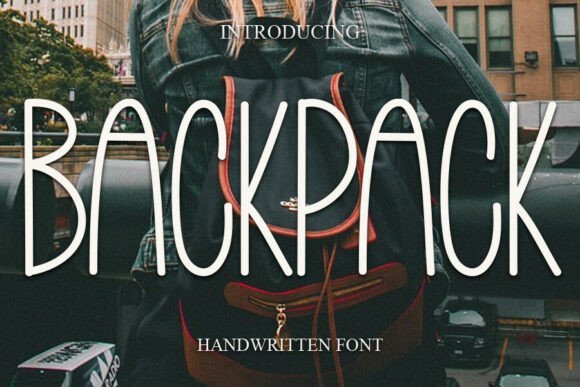
The Perfect Companion for Your Creative Journeys
There’s nothing quite like the feeling of pouring your heart into a design project. The hours of brainstorming, the endless iterations, and the satisfaction of bringing your vision to life. For designers, these moments are what make it all worth it.
When you’re working on a project that requires a touch of warmth and personality, that’s where Backpack Font comes in. This charming handwritten font is perfect for Father’s Day designs, greeting cards, t-shirts, posters, and more. Its slim, elongated characters bring a sense of approachability and heart, making it an invaluable addition to any designer’s toolkit.
Key Features of Backpack Font
- Character Set: The font includes a comprehensive character set, including Latin, Cyrillic, and Greek alphabets, as well as a range of symbols and punctuation marks.
- Unique Characteristics: Backpack Font features a distinctive, hand-drawn design with a mix of rounded and angular shapes, giving it a friendly and approachable feel.
Backpack Font Review
Backpack Font is an interesting take on the modern sans-serif genre, offering a unique blend of playfulness and professionalism. Here are some aspects where it truly shines: ✨
- Unique design: Backpack Font stands out from more generic sans-serif fonts, offering a distinctive look that’s both fun and sophisticated.
- Clear legibility: The font is well-designed for readability, making it suitable for a wide range of applications, from body text to headings.
- Customizability: Backpack Font offers a range of styles and weights, giving users the flexibility to adapt it to their specific design needs.
However, there are also some limitations to consider: ⚠️
- Lack of consistency: While the font has a clear personality, it can sometimes feel inconsistent in its design choices, which may not appeal to users who prefer a more uniform look.
- Not ideal for small sizes: Backpack Font can appear somewhat rough or distorted when used in small sizes, which may not be suitable for certain applications.
Overall, Backpack Font is a great choice for designers looking to add a bit of personality to their projects. While it may not be perfect, its unique design and clear legibility make it a solid addition to any font library.
Backpack Font is ideal for creating playful, casual designs, such as:
- Travel brochures and itineraries
- Food and beverage menus
- Event invitations and promotional materials
Remember to use Backpack Font in conjunction with other playful design elements to create a cohesive and engaging visual identity.